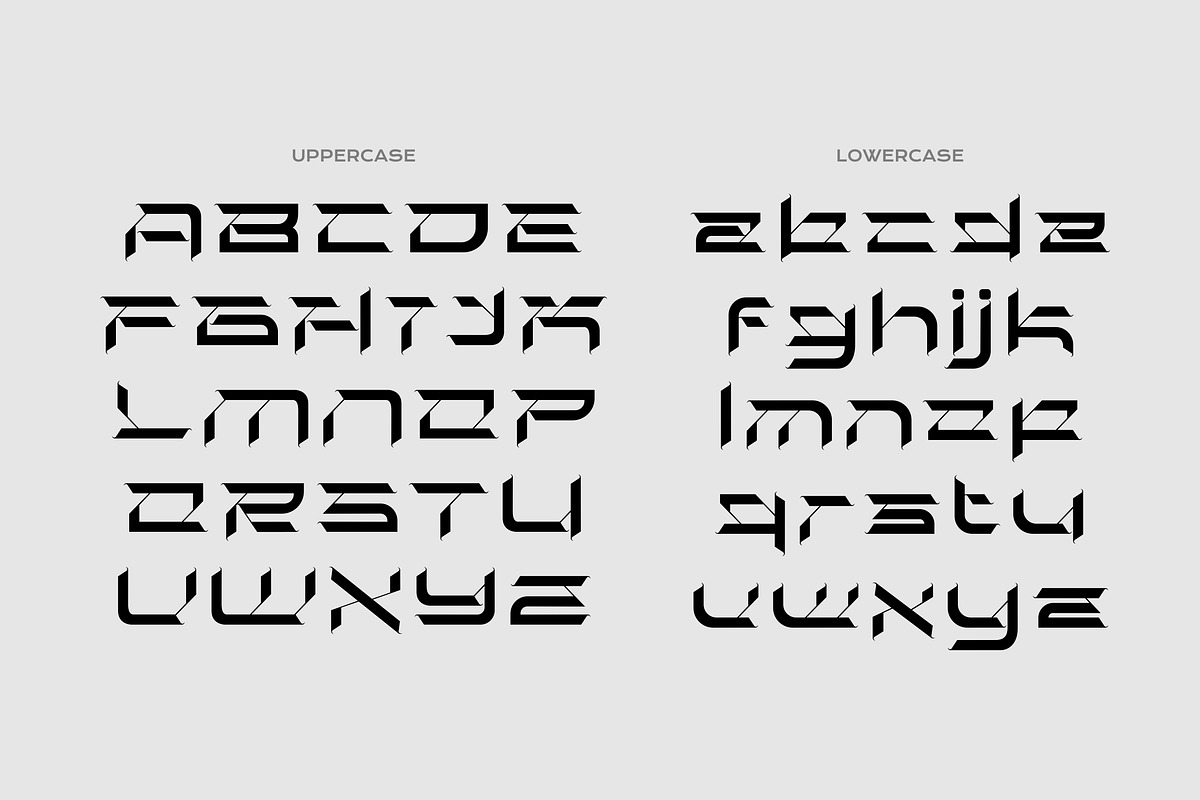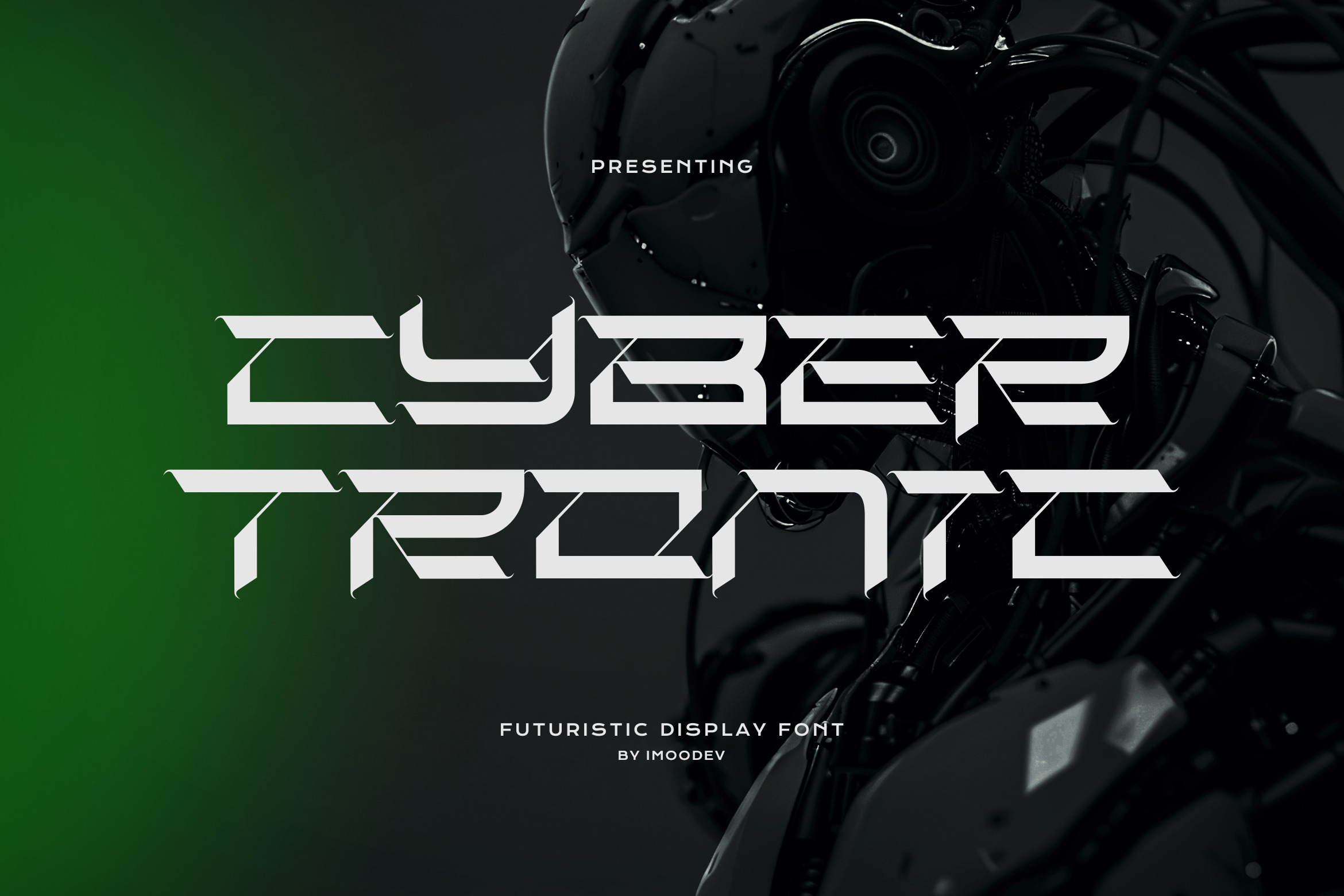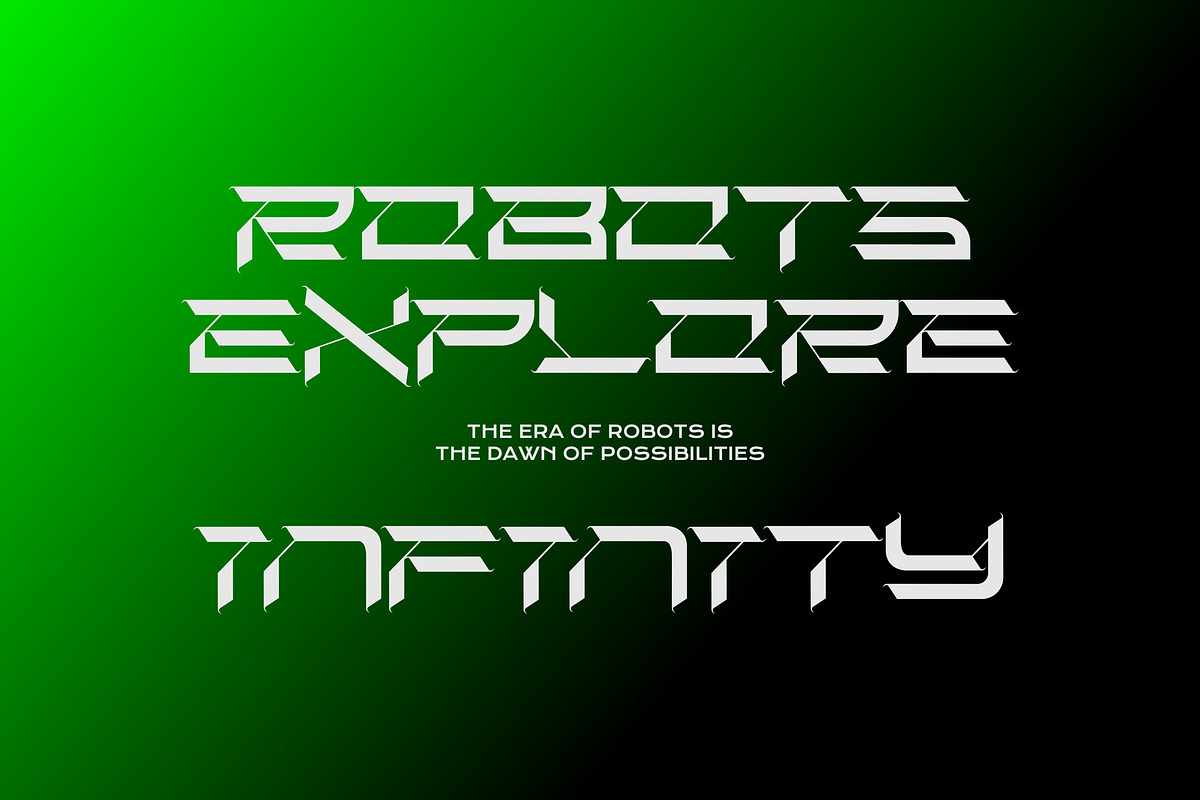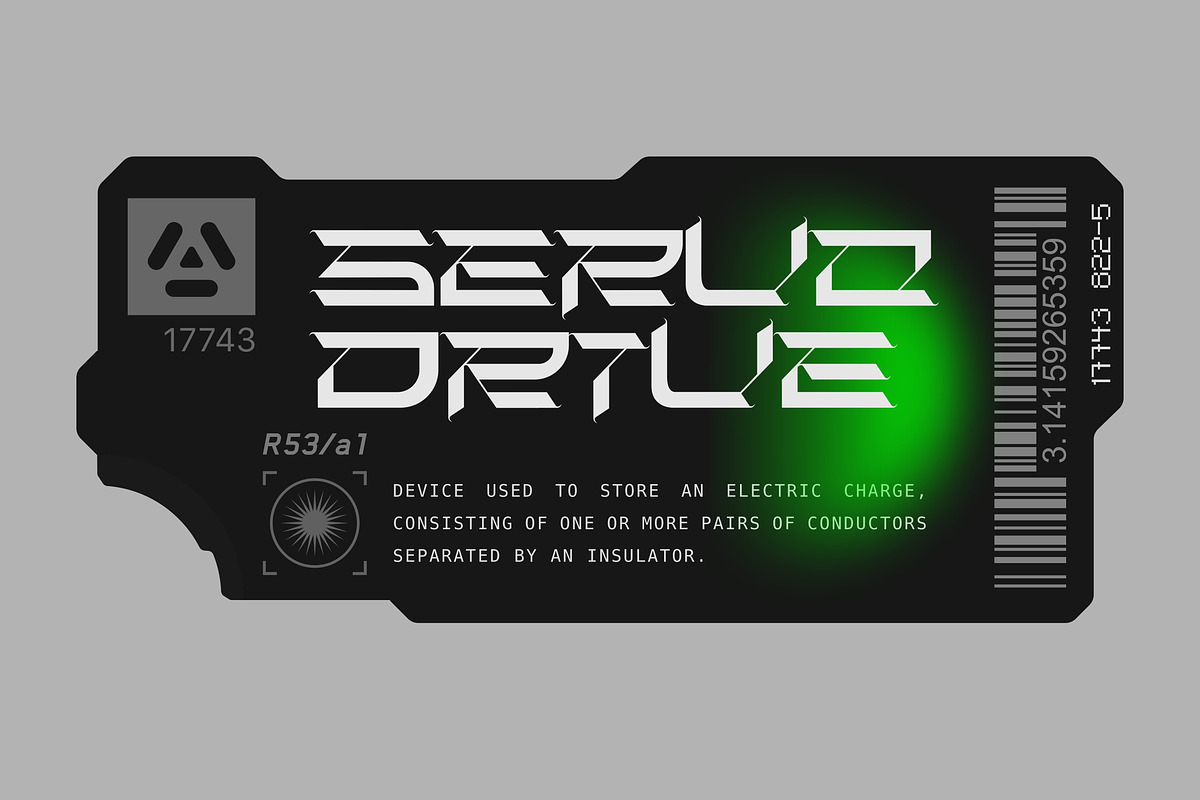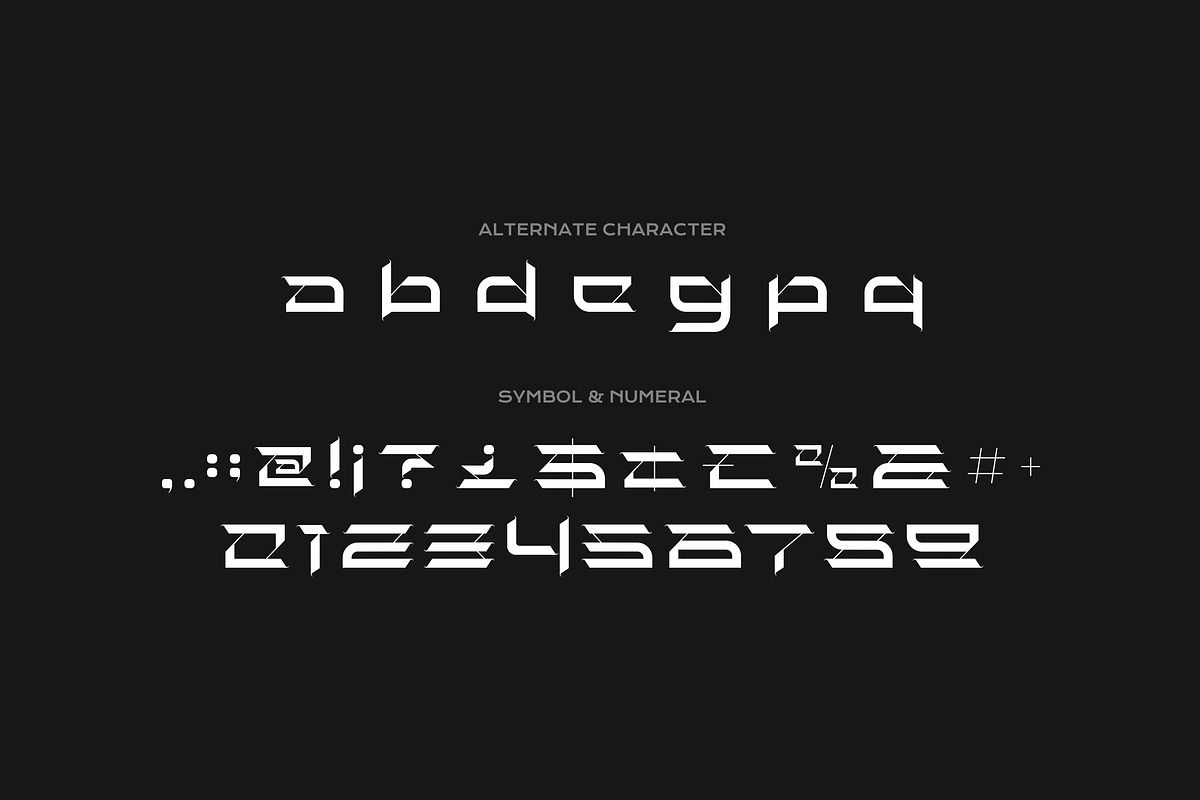
Cyber Tronic - Edgy Cyberpunk Font
Power up your designs with Cyber Tronic, a futuristic display font that embodies the cutting edge of technology and science fiction. Engineered with precision, this font features a wide, extended stance and sharp, angular letterforms that command attention.
Each character is meticulously crafted with a distinct, geometric structure, incorporating clean cutouts and negative space to create a high tech, stencil like aesthetic.
Cyber Tronic is more than just a font, it's a complete toolkit for building a futuristic identity, giving you the versatility to create everything from complex UI/HUD elements to bold typographic posters.
Step into the future with Cyber Tronic and give your projects an unmistakable, cybernetic edge. It's engineered for cutting-edge branding for tech startups, gaming companies, esports teams, and electronics brands. Perfect for designing striking sci-fi movie posters, immersive UI/HUD displays for video games, dynamic Twitch branding, and bold graphics for techwear apparel.
- Uppercase and Lowecase Characters.
- PUA Encoded Characters.
- Numerals and Punctuations.
- Alternates and Ligatures.
- Multilingual Support.